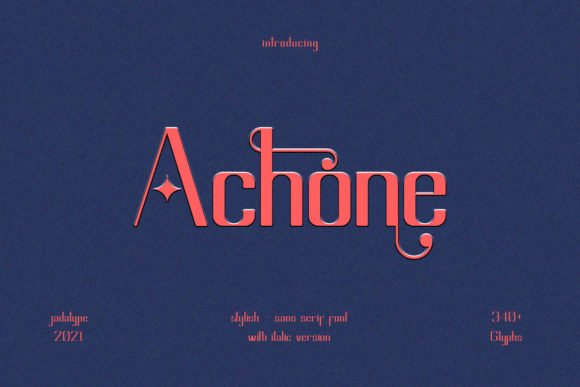
Unlock the Power of Achone Font: Elevate Your Designs with Style
Have you ever been stuck in a creative rut, staring at a blank page with no inspiration in sight? The blank canvas can be daunting, but what if you had the perfect tool to spark your imagination? For designers, finding the right font can make all the difference between a mediocre design and a masterpiece. Enter Achone Font, a stylish sans serif font that’s about to become your new go-to.
Achone Font is designed to bring a touch of elegance and sophistication to your designs, while also conveying a sense of seriousness and authority. Its versatility makes it perfect for a wide range of projects, from corporate branding to creative campaigns. With its neat vibe and endless variations, you’ll have fun experimenting with different styles and finding the perfect fit for your next design project.
Achone Font Key Features
- Font Family: Achone is a sans-serif font family, designed to be highly legible and versatile.
- Character Set: Supports a wide range of languages, including Latin, Cyrillic, and Greek alphabets, making it suitable for international use.
- Font Size: Available in 8 different font weights, ranging from Light to Black, allowing for precise control over text appearance.
- Resolution: Designed to be scalable, making it suitable for use in various resolutions, from low-resolution displays to high-resolution print materials.
- Unique Characteristics: Achone features a distinctive geometric shape and a high x-height, making it highly legible and suitable for body text and titles.
Achone Font Review
As a designer, I recently had the chance to work with the Achone font, and I must say it’s an interesting addition to my font library. ✨ Here are some of the things that caught my attention.
- Unique aesthetic: Achone font has a distinct, quirky feel to it that’s perfect for projects that require a bit of whimsy.
- Good legibility: Despite its unusual design, the font is surprisingly easy to read, even at smaller sizes.
- Customizable: The font comes with a range of weights and styles, making it easy to find the perfect fit for your project.
However, as with any font, there are some limitations to consider ⚠️.
- Limited font size range: While Achone font is legible at smaller sizes, it starts to lose its charm at larger sizes, where it can become too ornate.
- Lack of consistency: The font’s quirky design can sometimes lead to inconsistencies in spacing and alignment, which can be a challenge to work with.
Overall, I’d say Achone font is a solid addition to any designer’s library, but it’s best suited for projects where you want to add a bit of personality and whimsy. With some careful planning and attention to detail, you can achieve some really unique and interesting designs.
Tips for Getting the Most Out of Achone Font
Achone Font is ideal for creating elegant and sophisticated designs. To get the most out of it, try using it in combination with other elegant fonts and design elements. You can also experiment with different font sizes and colors to create a unique look.
Achone Font is commonly used in:
- Restaurant menus and signage
- Magazine and book covers
Comparison to Achone Font: Montserrat has a more geometric and modern feel compared to Achone Font’s sleek and minimalist design. While both fonts are suitable for digital media, Montserrat is more versatile and can be used for a wider range of applications.